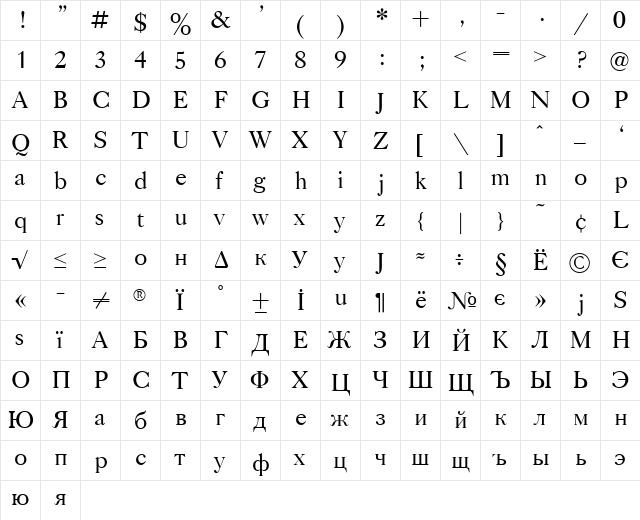
GazetaTitul Medium Font Preview
GazetaTitul Medium
Design Context for GazetaTitul Typeface
GazetaTitul offers clean, dependable letterforms without strong stylistic allegiance, making it a practical choice for designers who need flexibility.